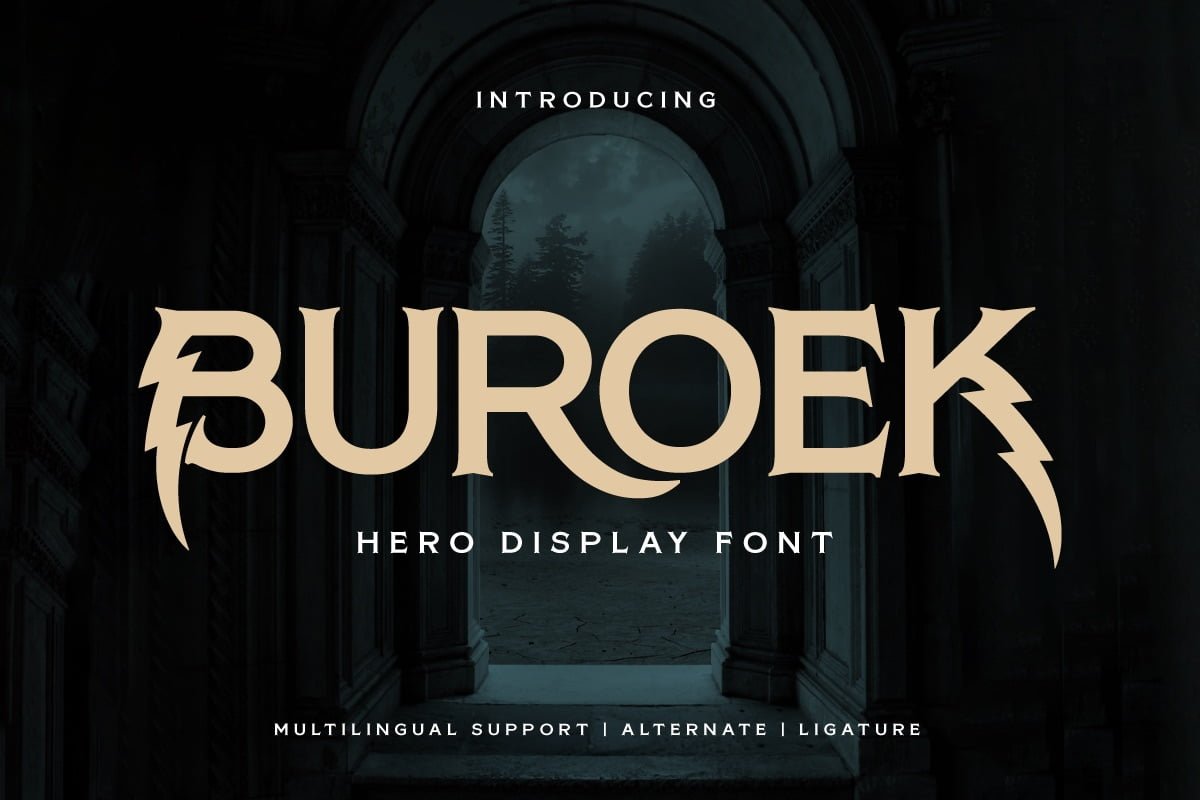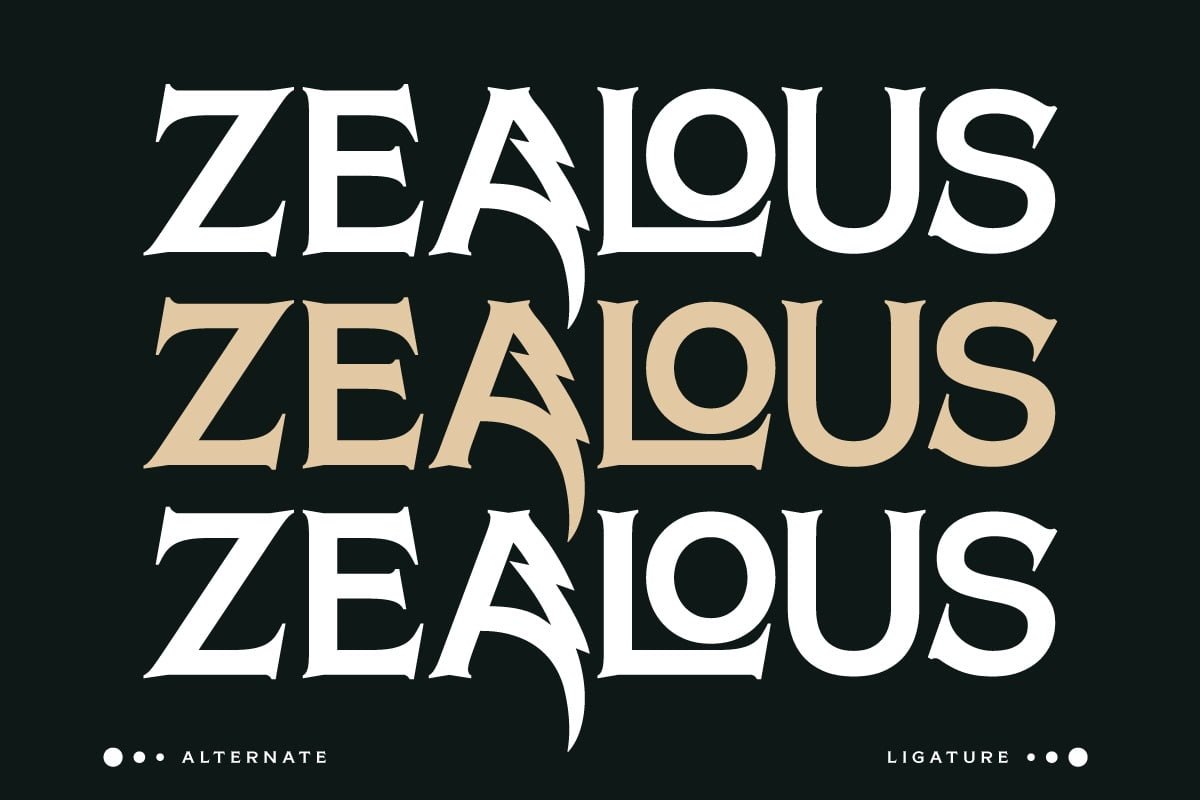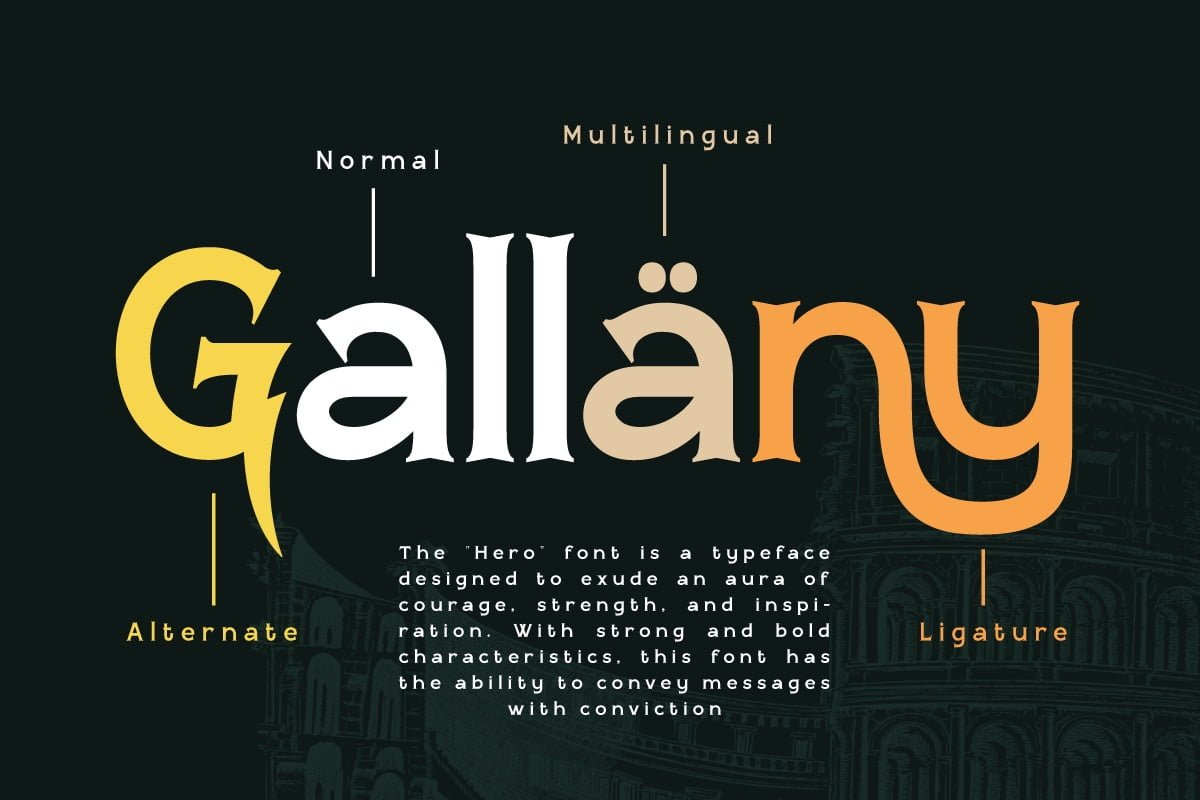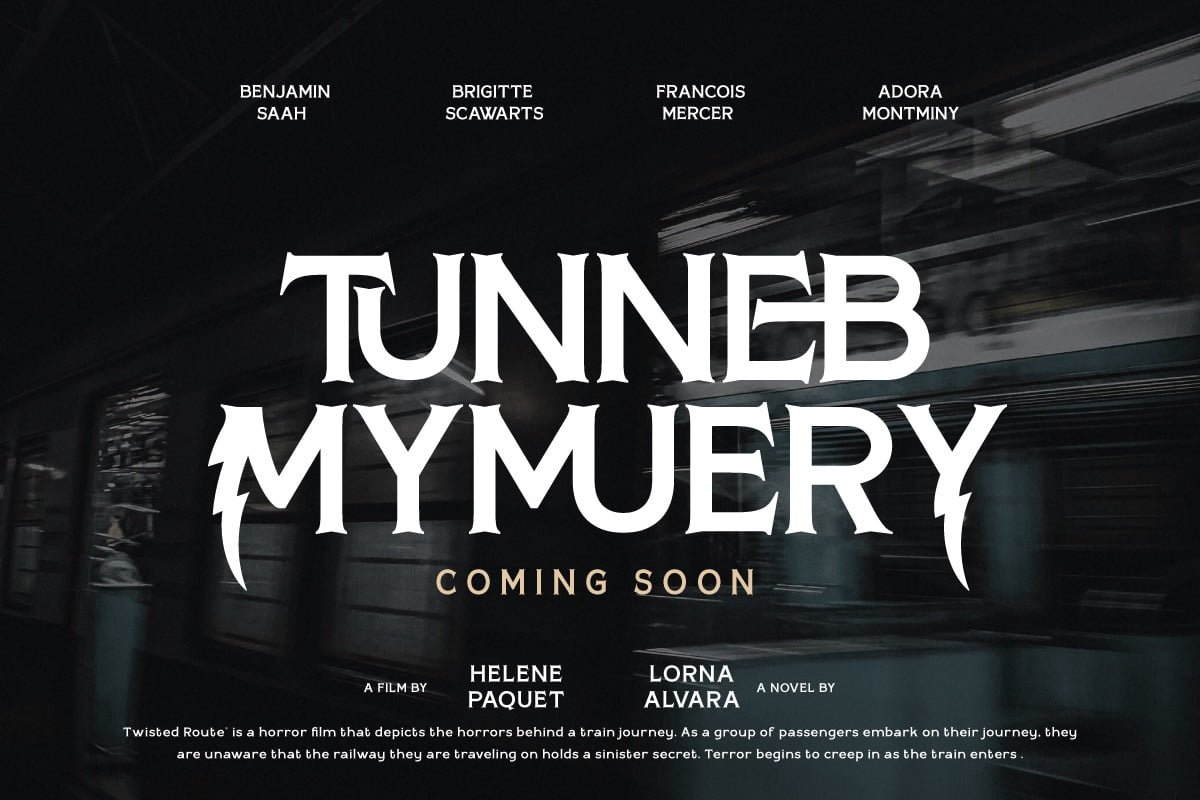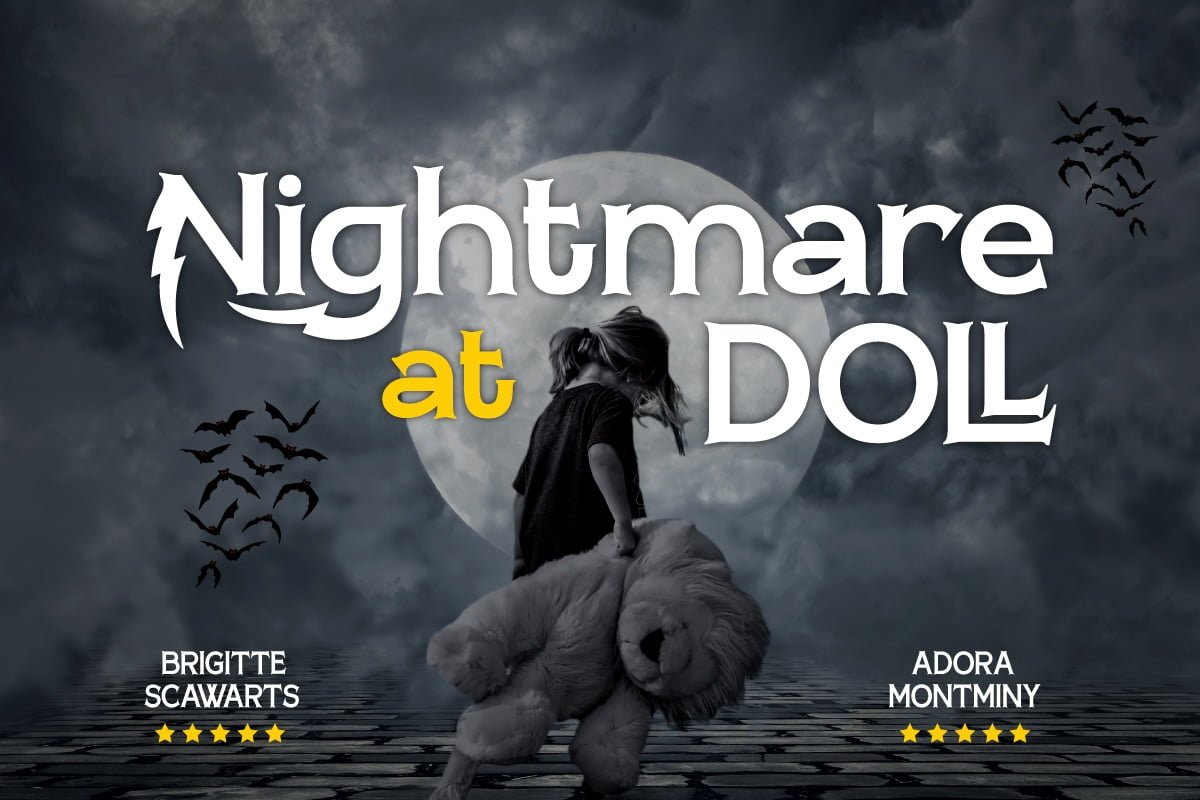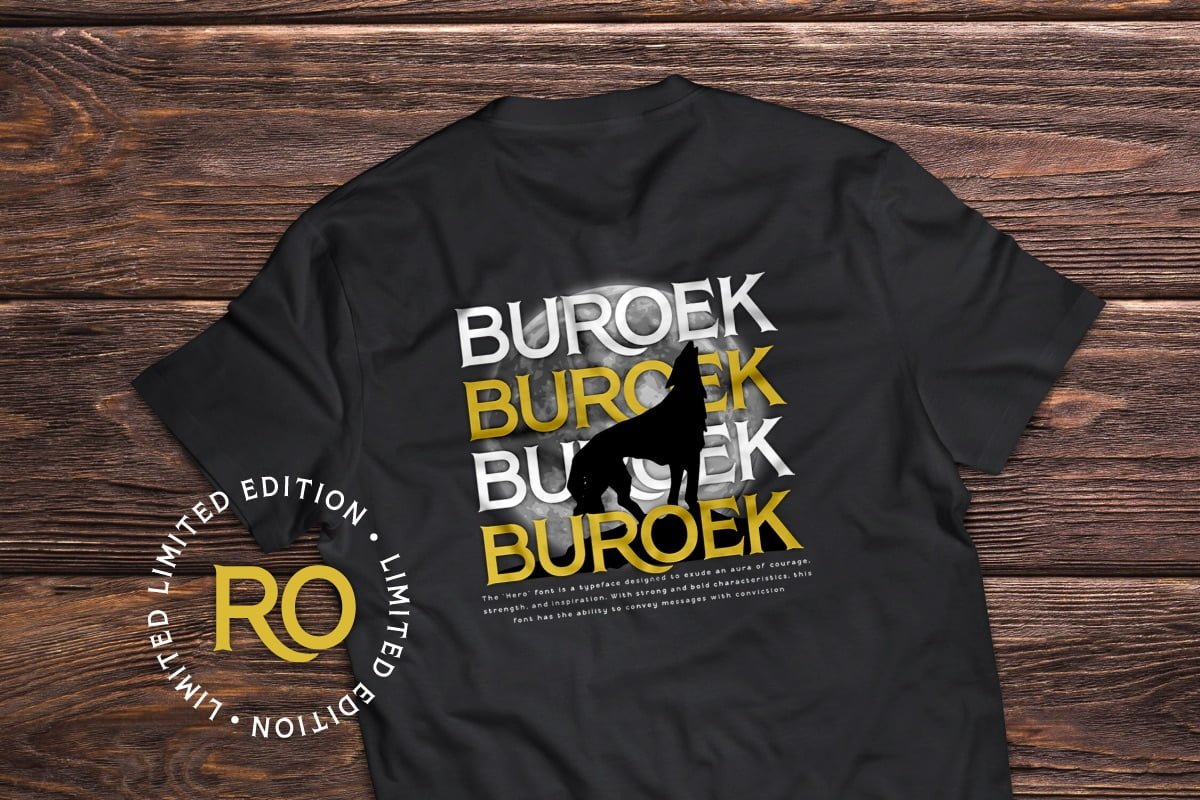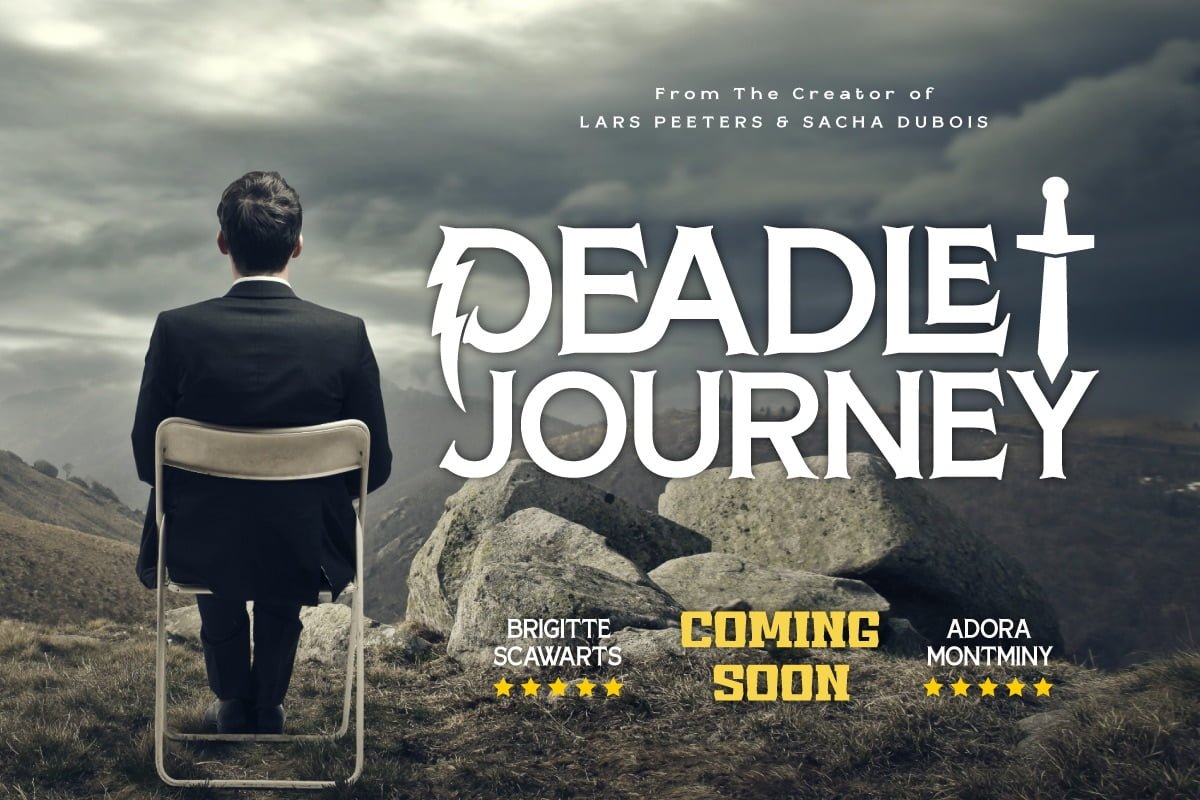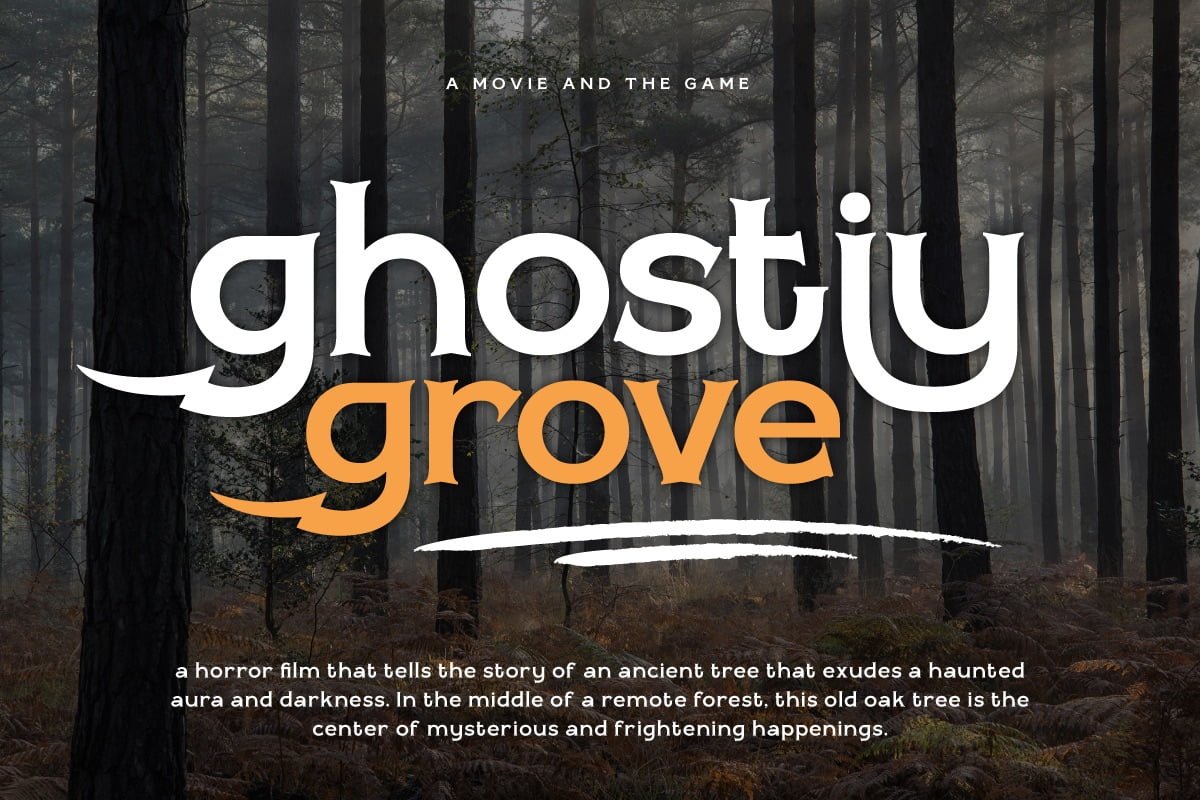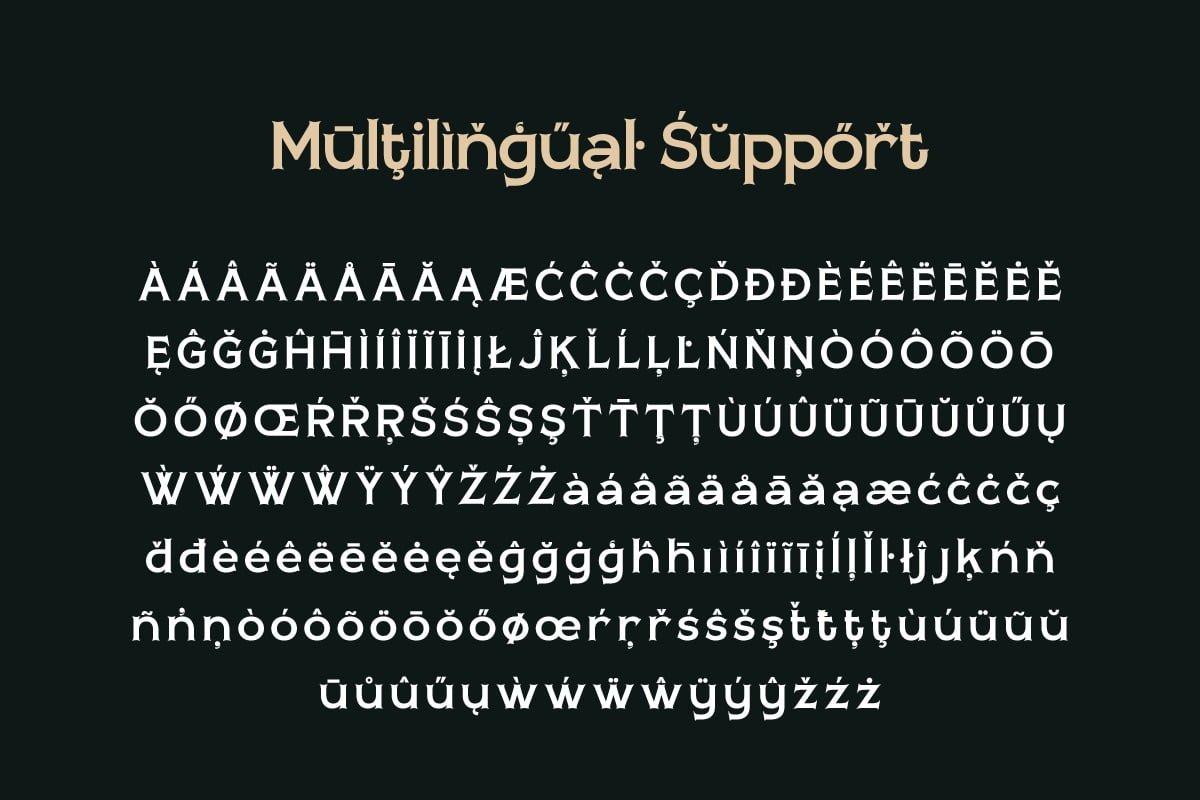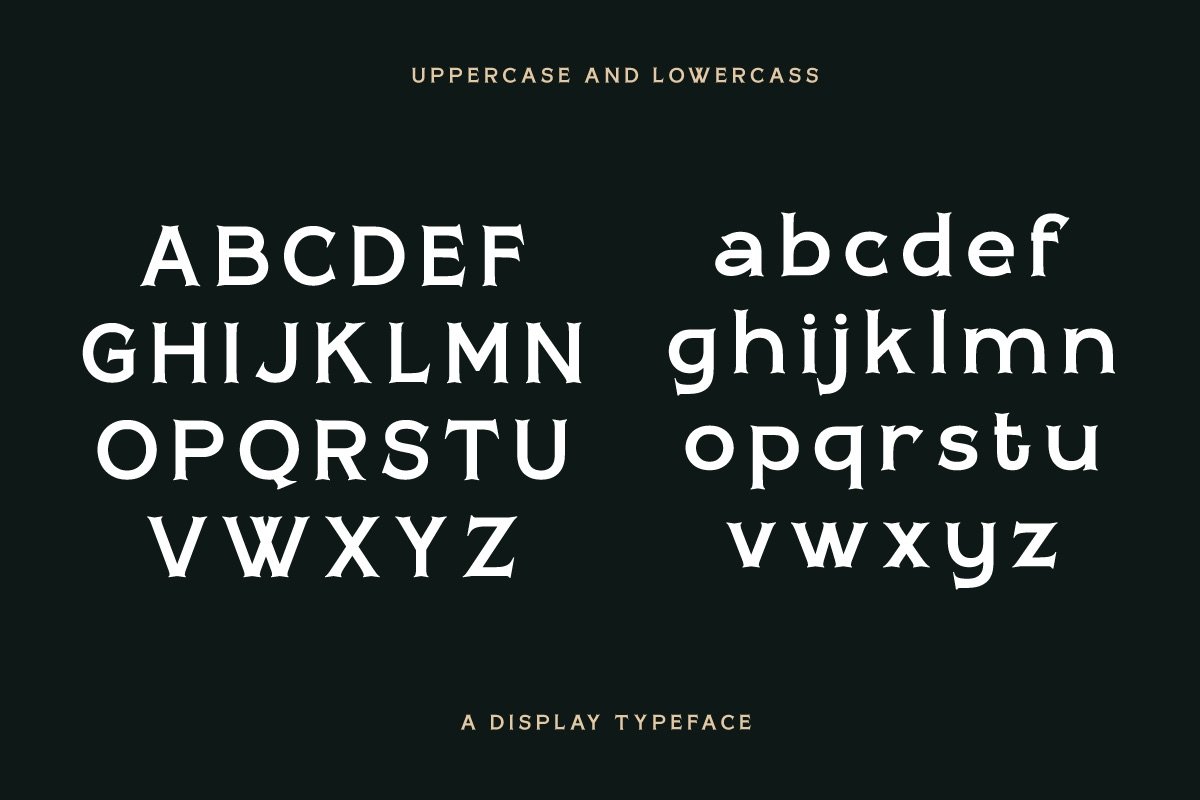
5. Buroek | Display Hero Font
BUROEK 01
Buroek | Display Hero Font
Buroek is a display font that is not just letters, but also a spirit of courage that is expressed in every line and curve. Created in a stunning superhero style, Buroek is the perfect choice for projects that require a visual punch.
Enhance your message in a film, game, or design project with an attractive and stressful look from Buroek. Its bold, bold letters convey a strong and unwavering feeling to your audience.
Superior features, such as ligatures and alternates, give your designs unlimited creative dimensions. You can compose unique letter variations and create a look that is unmatched.
Not only great in appearance, Buroek can also carry your message around the world with its multilingual support. Communicating with different languages and cultures is made easier with this font.
Buroek is the answer for those of you who are looking for a strong and bold font for projects that require a superhero touch. Choose Buroek now and feel the boldness in every design you create.